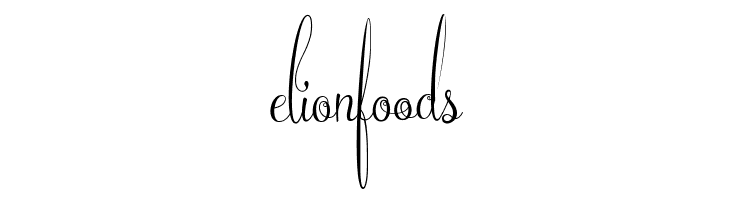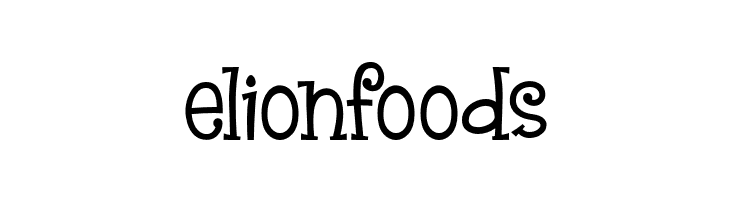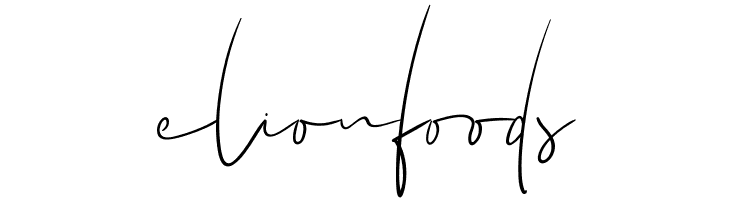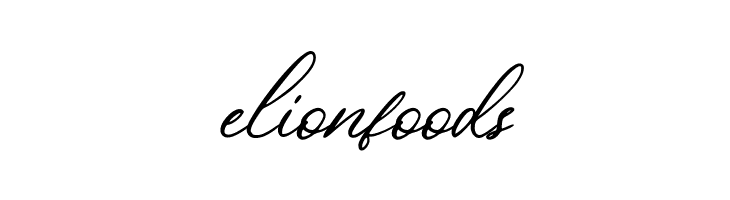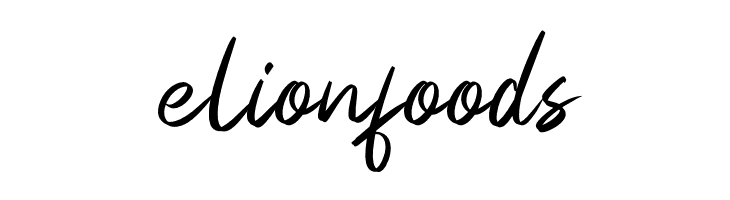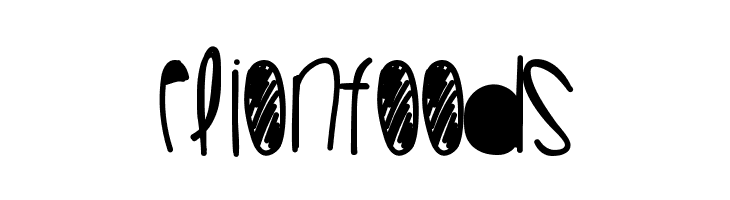
A bold, brush-style font with a lively and artistic flair.
A playful handwritten font with a casual and friendly style.
A whimsical and decorative font with intricate swirls and curls.
A graceful, flowing script font with elegant, connected strokes.
An elegant, flowing cursive font with interconnected letters.
A fluid, cursive script font with a dynamic and expressive style.
A cursive, handwritten font with elegant, flowing strokes.
A lively, cursive script font with fluid, connected letters and varying stroke thickness.
A whimsical, curly font with playful and decorative elements.